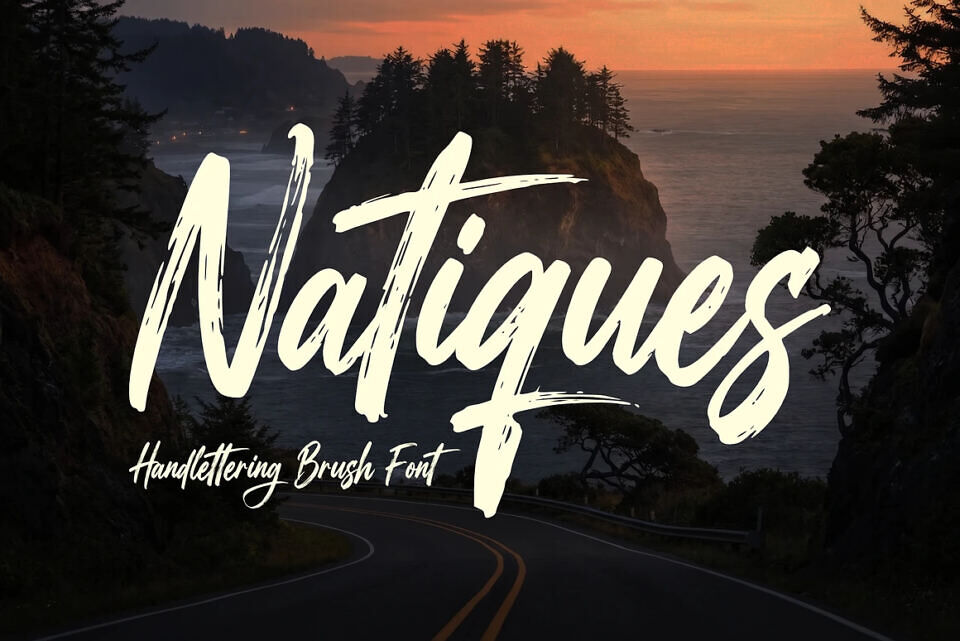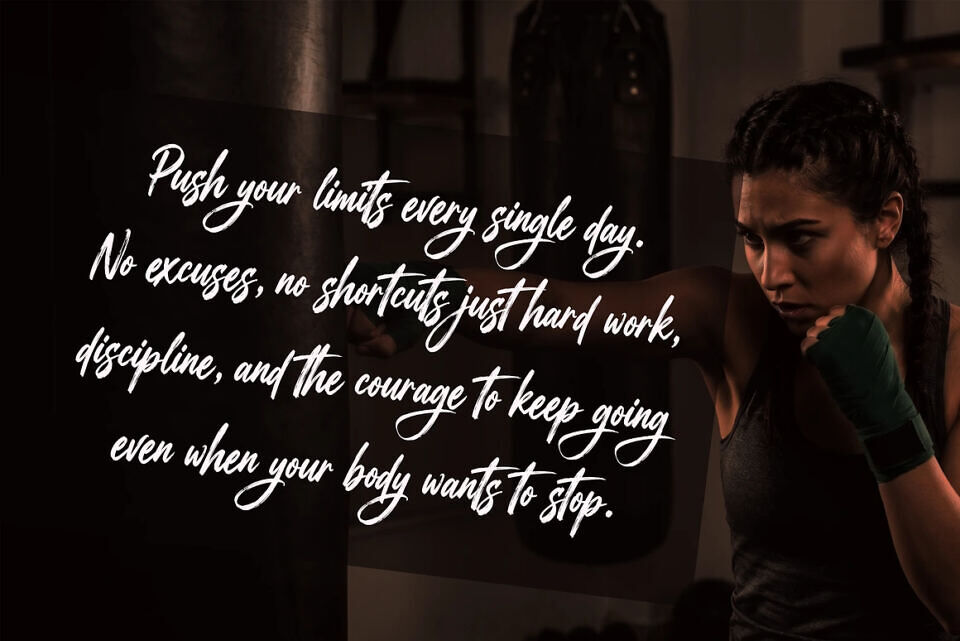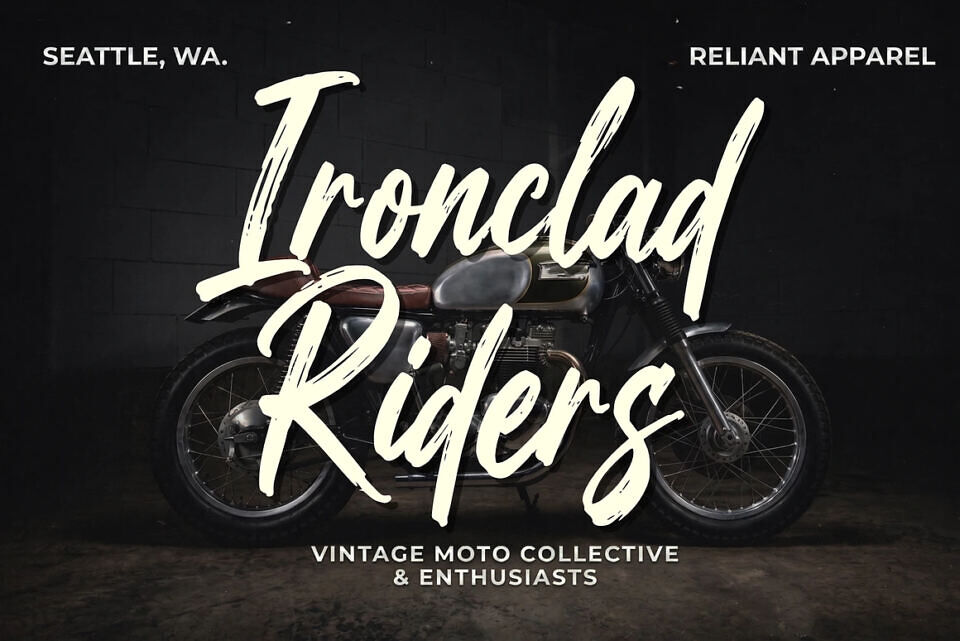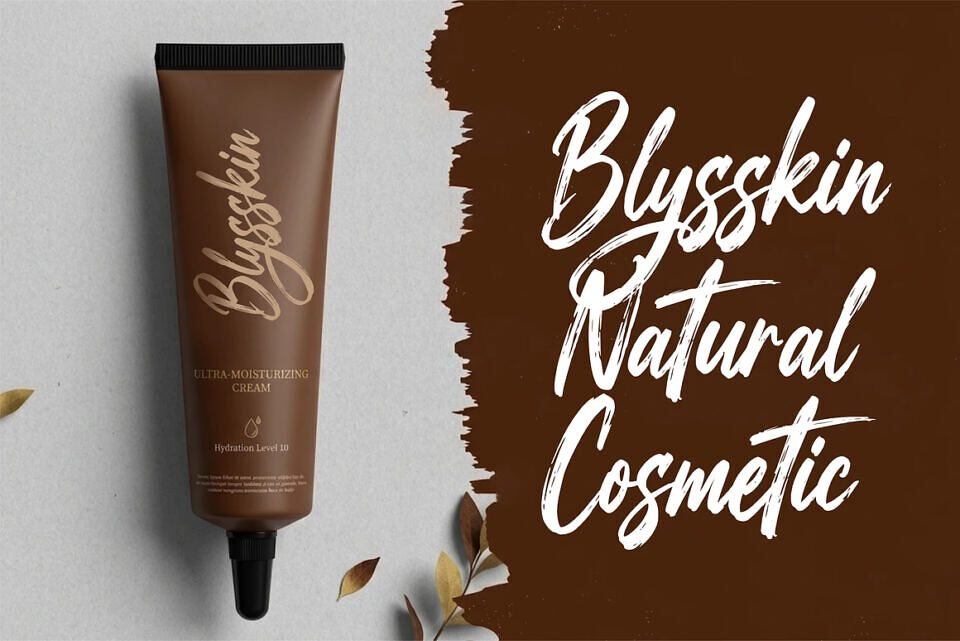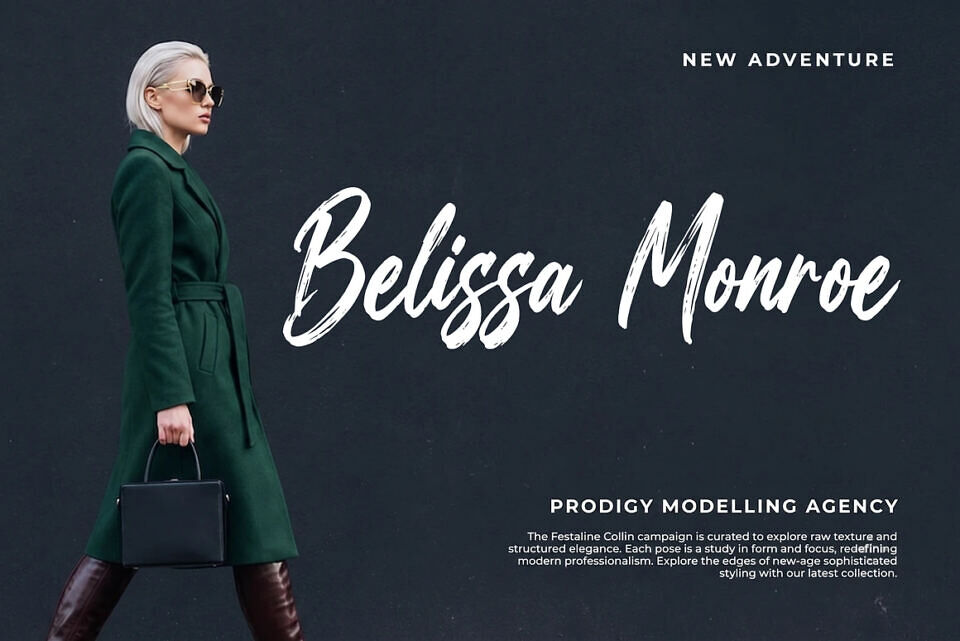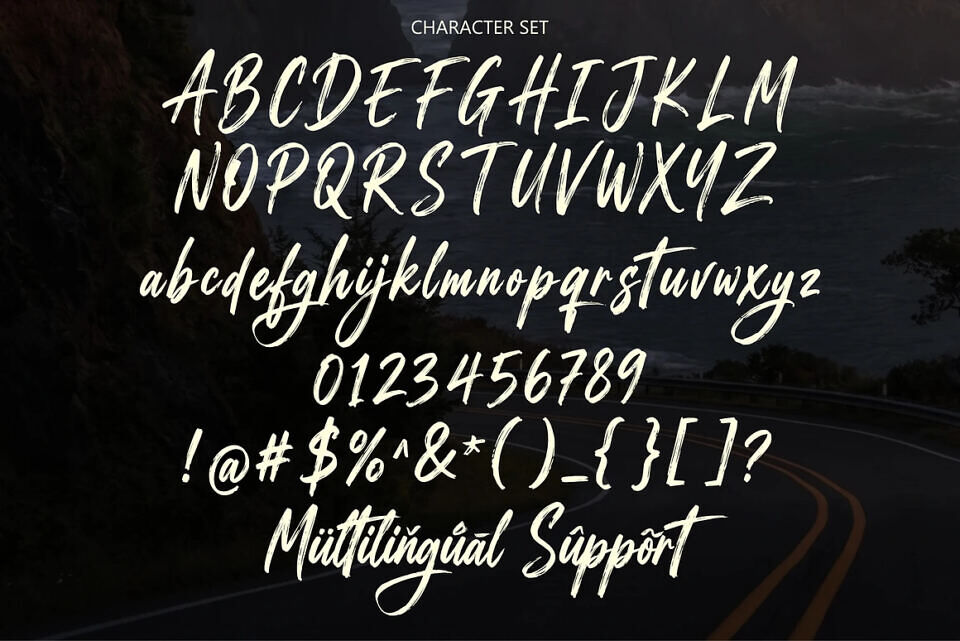
Natiques Font
Natiques is a bold and expressive handlettering brush font that captures the raw beauty of natural brush strokes. Designed with an authentic hand-drawn feel, this font delivers a strong visual impact while maintaining a smooth and stylish flow.
With its textured strokes and dynamic movement, Natiques brings a perfect balance between rugged energy and modern elegance. Each letter is crafted to feel alive—making your designs look more personal, artistic, and eye-catching.